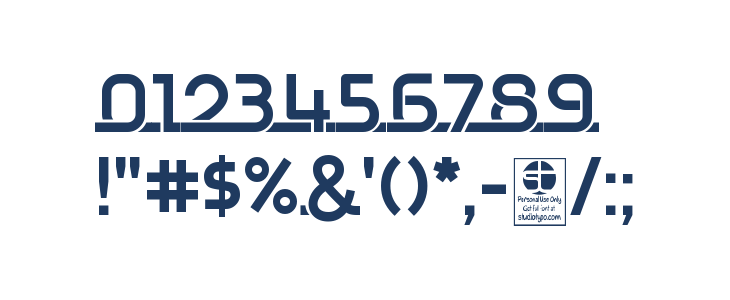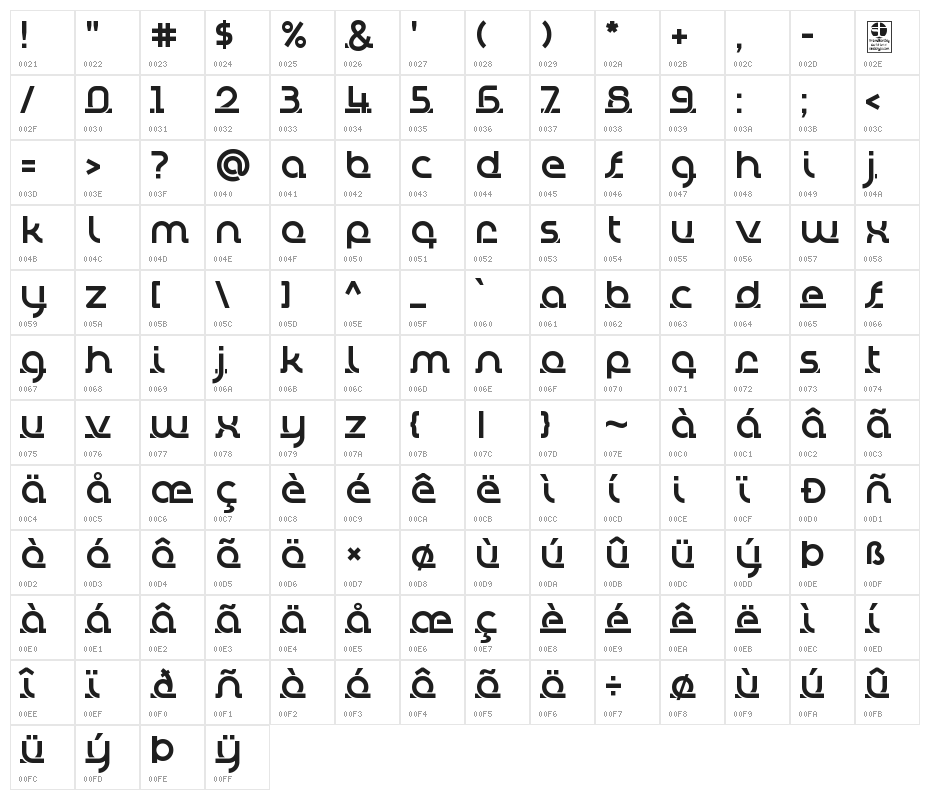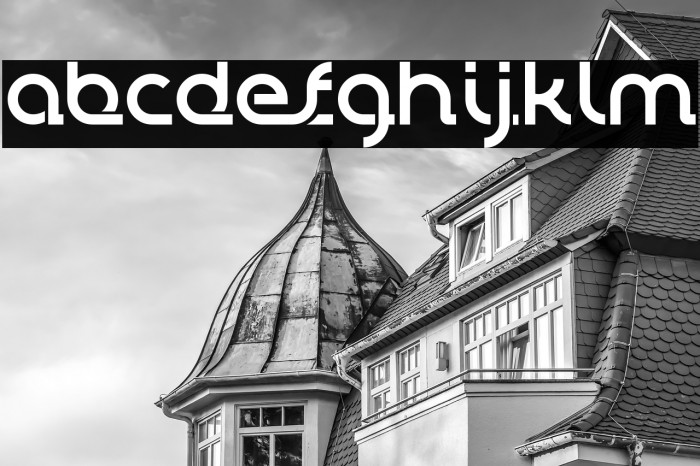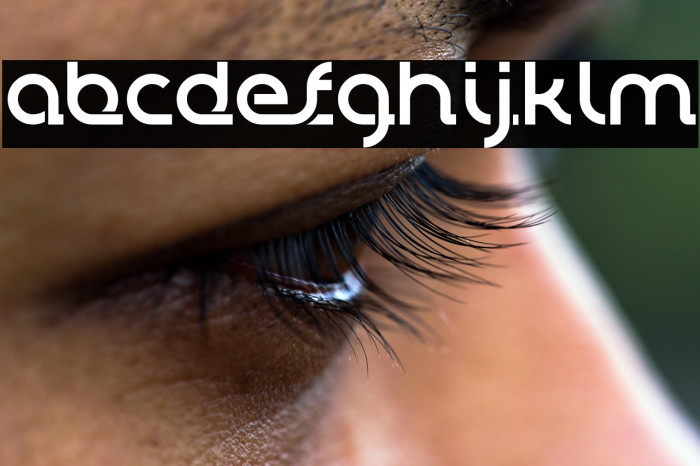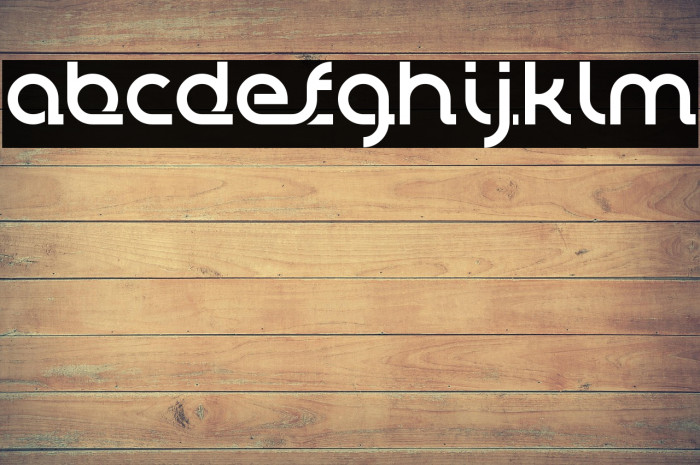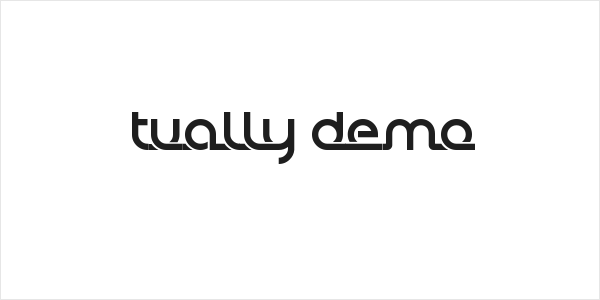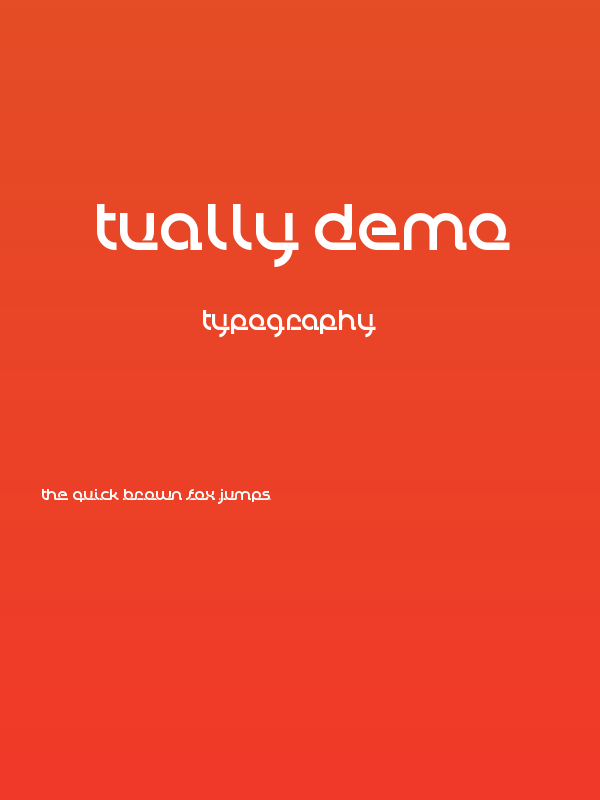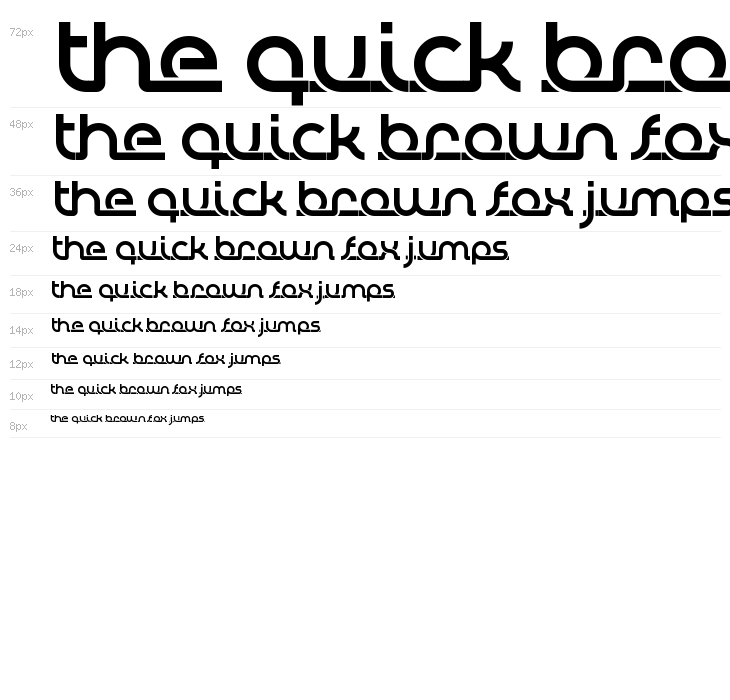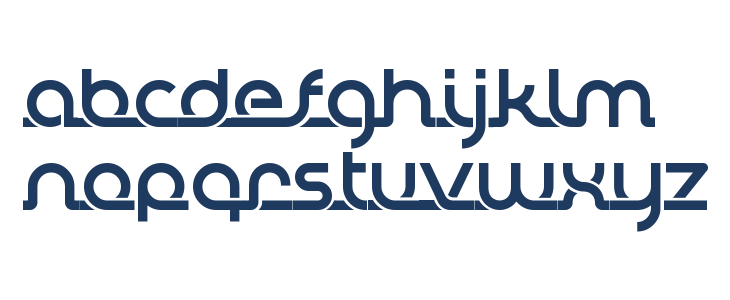
Tually Demo Font
Tually Demo Description
This font features a modern, geometric style with a distinct futuristic flair. The characters are composed of bold, rounded shapes with consistent stroke widths, creating a cohesive and streamlined appearance. The design incorporates unique cutouts and angles, giving it a digital and tech-inspired look. The uppercase and lowercase letters maintain a uniform height, enhancing readability while adding a sleek, contemporary aesthetic. The numerals and special characters follow the same design principles, ensuring a harmonious overall appearance. This font is ideal for projects that require a modern and innovative touch.
| Overall Style | Futuristic, Geometric |
| Use Case | Headlines, Logos, Digital Interfaces |
| Proposed Projects | Ideal for tech branding, digital interfaces, modern advertising, and futuristic-themed designs. |